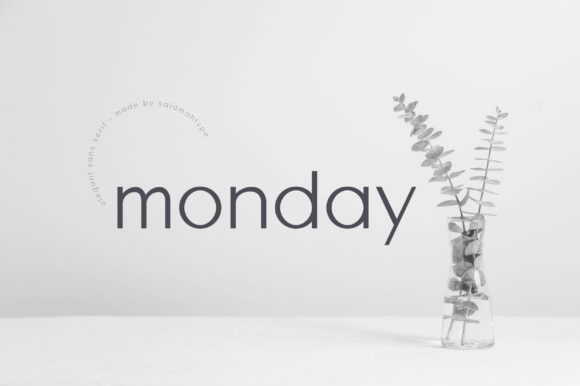
Discover the perfect font to give your designs a fresh and modern look with Monday Font, the latest addition to our impressive collection of sans serif fonts. Created by Salamahtype, Monday Font is a stunning and versatile font that is sure to elevate your design game.
Monday Font is the ultimate tool for any design project. Its clean and simple design makes it perfect for branding projects, logos, and social media posts. With Monday Font, your designs will stand out from the crowd, and you'll be able to showcase your brand in the best possible light.
This font is also ideal for advertisements, product packaging, wedding invitations, and product designs. The elegant and minimalist style of Monday Font will give your designs a touch of sophistication and refinement, making them look professional and polished.
If you're looking for a font that is perfect for label design, photography, watermark, and stationery, look no further than Monday Font. Its versatility is unmatched, and it's the perfect addition to any designer's toolkit.
With Monday Font, you'll have access to a world of creative possibilities. Its sleek and modern design will inspire you to create stunning designs that captivate your audience and leave a lasting impression. It's a font that truly speaks to the heart of modern design.
So, whether you're a graphic designer, a product designer, or a photographer, Monday Font is the perfect choice for all your creative needs. With its clean lines, minimalist style, and eye-catching appeal, Monday Font is sure to take your designs to the next level.